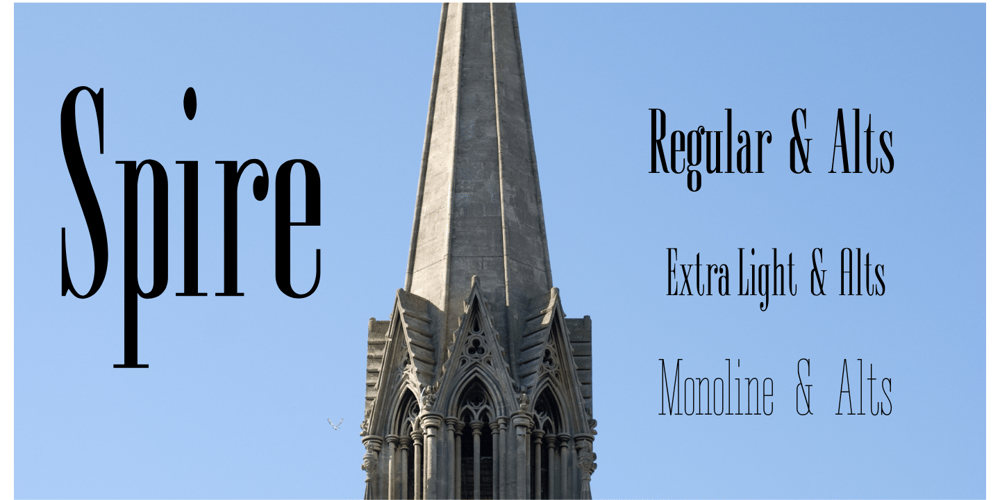
Spire Font Family was designed by Ann Pomeroy and published by GroupType. Spire contains 6 styles and family package options. Originally designed by Sol Hess for the Lanston Monotype Foundry in 1938, this revival was designed by Ann Pomeroy in the early 90s. Spire is a condensed serif with a very 1930s retro look. PLEASE NOTE: Each Spire font (Regular, Extra Light and Monoline) include a companion Expert font in the download. The Experts feature several alternate glyphs. The Family includes three Styles and three Expert styles. 6 fonts all together.